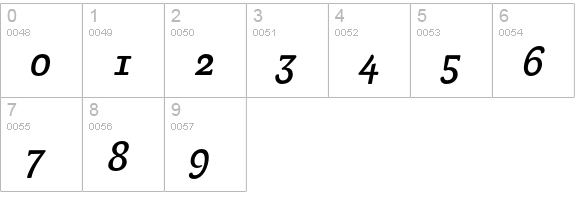
LexiconGothic-Italic Font Details
LexiconGothic-Italic is a distinctive, italic variant in the LexiconGothic typeface family \xE2\x80\x94 well suited to design and typography projects.
LexiconGothic-Italic is a stunning font that embodies the essence of elegance and sophistication. With its unique blend of gothic and italic styles, this font is perfect for adding a touch of edginess to any design project. The beautifully crafted letterforms of LexiconGothic-Italic exude a sense of mystery and intrigue, making it an ideal choice for branding, logos, and headlines. Its sharp angles and subtle curves create a visually striking appearance, capturing attention and leaving a lasting impression. Not only does LexiconGothic-Italic possess an undeniable aesthetic appeal, but it is also incredibly versatile. Whether used in print or digital media, this font adapts effortlessly to any context, enhancing the overall visual impact of your work. One of the most remarkable aspects of LexiconGothic-Italic is that it is available for free. Yes, you read that right! This exceptional font can be freely downloaded at FontsMarket.com, allowing designers, artists, and creatives everywhere to access its captivating beauty without any cost. So why wait? Embrace the power and allure of LexiconGothic-Italic and elevate your designs to new heights. Whether you're creating a logo for a cutting-edge fashion brand or designing a poster for a thrilling event, this font will undoubtedly add a touch of sophistication and intrigue. Download LexiconGothic-Italic today and let your creativity soar.